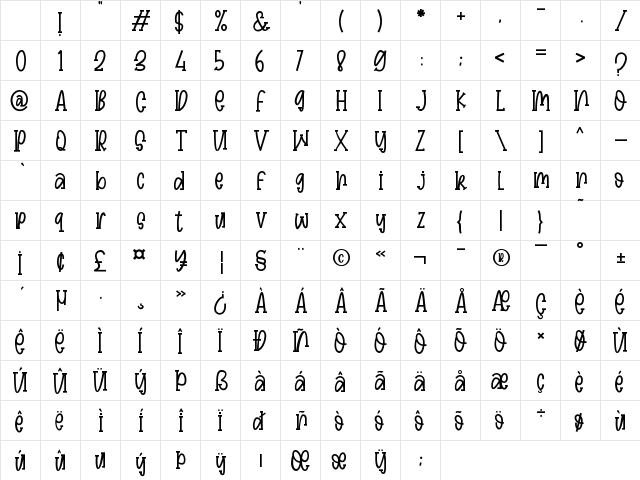
Complete Farm Bluster Regular glyph index. Displaying only characters natively supported by Farm Bluster Regular font.
Farm Bluster is a composed and adaptable typeface that performs quietly and consistently across a wide range of design contexts.